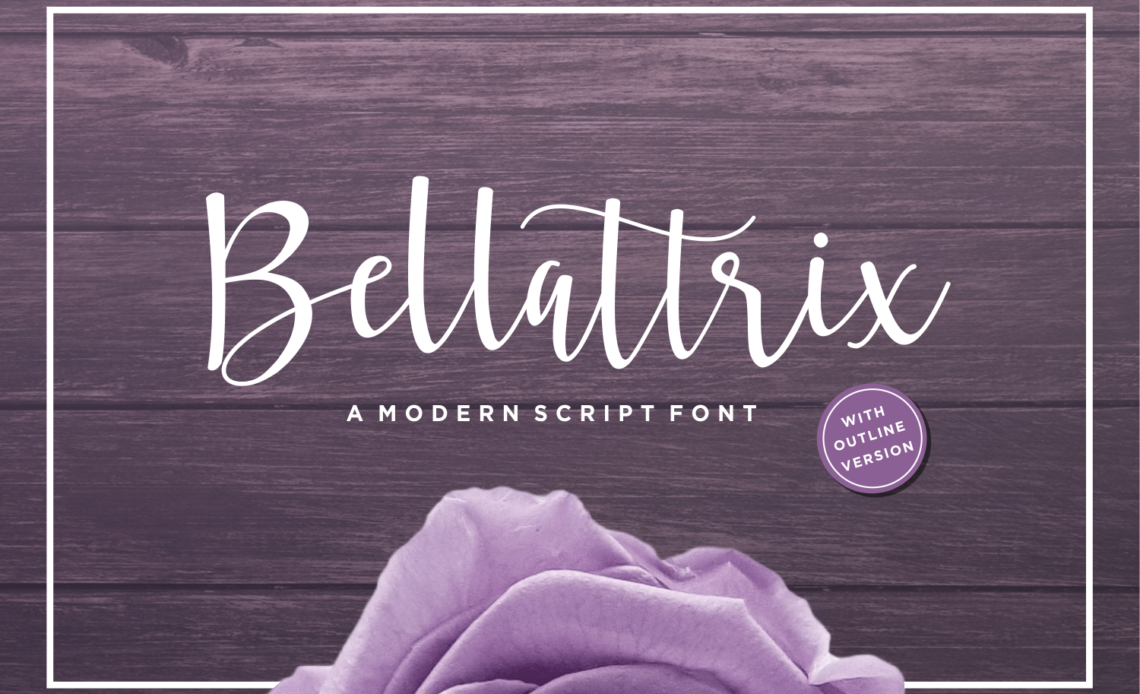
Step into a world of elegance and style with Bellatrix, a breathtaking script font that captivates with its ethereal beauty and timeless charm. Inspired by the stars that adorn the night sky, Bellatrix shines brightly as a beacon of creativity, inviting you to craft designs that radiate sophistication and grace.
With its delicate curves and flowing lines, Bellatrix effortlessly captures the essence of authenticity, whether you're crafting a heartfelt love letter, designing an enchanting wedding invitation, or adding a touch of whimsy to your personal branding. Its clean and outlined versions offer versatility that knows no bounds, allowing you to seamlessly adapt Bellatrix to your unique vision.
Whether you're seeking a font that exudes elegance for your latest branding project, or a font that whispers romance for your cherished correspondence, Bellatrix is the perfect choice. Its calligraphic feel adds a touch of artistry and personality that will leave a lasting impression on your audience.
Don't settle for ordinary fonts that blend into the background. Embrace the allure of Bellatrix, a font that captivates, inspires, and elevates your designs to new heights. Let your creativity soar as you explore the endless possibilities that await you with Bellatrix, the font that transforms your words into works of art.